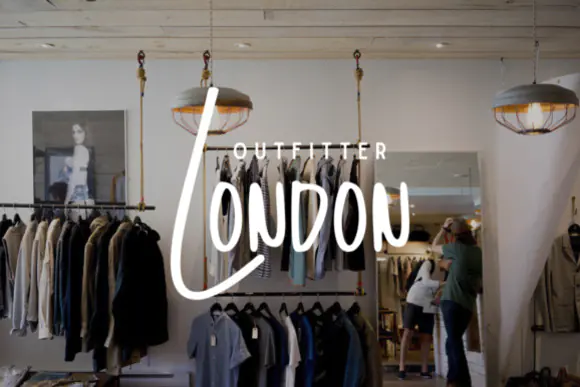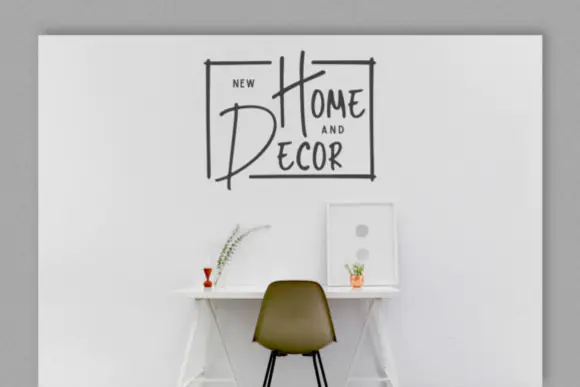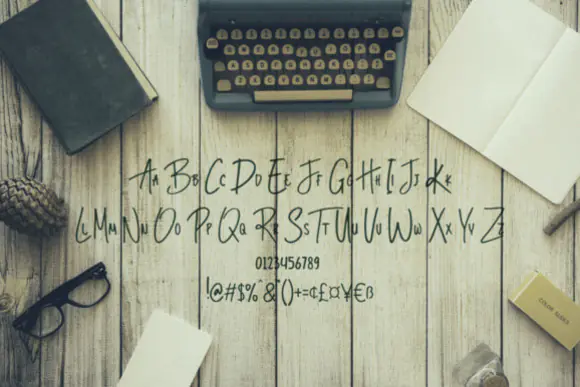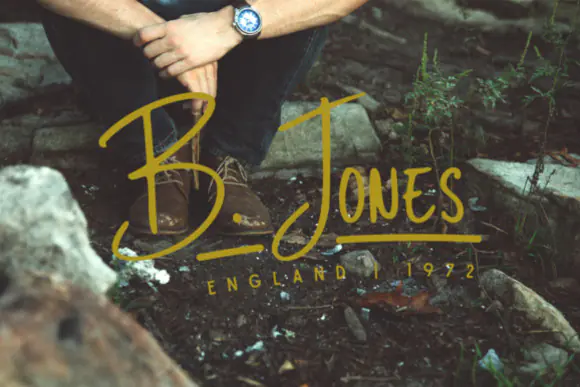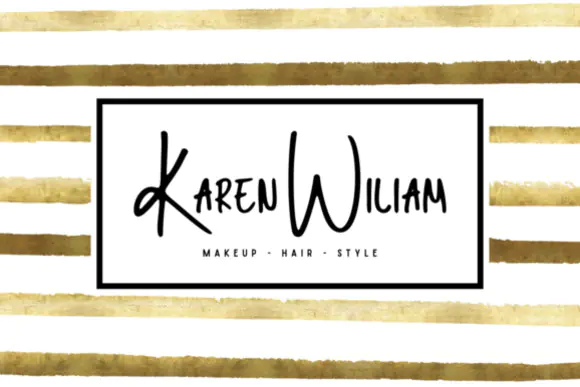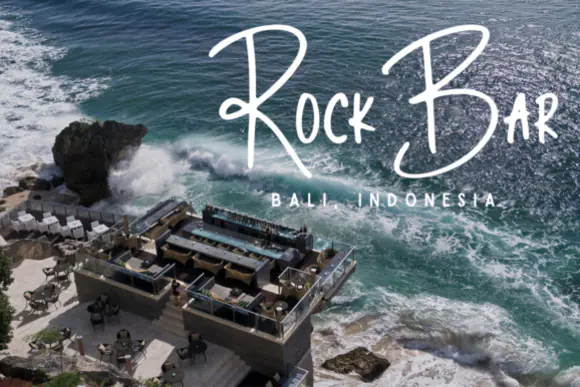
Bird House Marker Handwritten Font – Casual Signature-Style Typeface for Branding, Logos, Signatures, Social Media Graphics, Packaging, Labels & Creative Handmade Designs
Add a natural, casual, and handmade touch to your designs with Bird House Font, a marker-style handwritten typeface created for projects that need personality, warmth, and creative simplicity. Its handwritten marker appearance gives your text an authentic, relaxed, and expressive feel, making it ideal for designs that should look personal and approachable.
Bird House Font is perfect for branding, logos, signatures, social media graphics, product packaging, labels, greeting cards, quote designs, posters, stickers, handmade product tags, digital artwork, printable designs, and creative business materials. Its simple handwritten style works well when you want your typography to feel friendly, artistic, and naturally crafted.
Whether you are creating a signature-style logo, personal brand identity, handmade product label, casual social media post, or stylish quote graphic, Bird House Font helps your message feel more human, warm, and memorable. It is especially useful for designers, crafters, small business owners, bloggers, digital product creators, and branding specialists looking for a clean marker handwritten font for everyday creative projects.
Branding, logos, signatures, handwritten marks, social media posts, product packaging, labels, greeting cards, quote designs, posters, stickers, handmade product tags, digital artwork, printable wall art, business cards, and casual creative projects.
Key Features
• Marker-style handwritten font
• Natural, casual, and expressive appearance
• Great for branding, signatures, and logos
• Adds a personal handmade touch to designs
• Suitable for both digital and printable projects
• Simple, friendly, and easy to use
• Perfect for creative business and personal branding designs